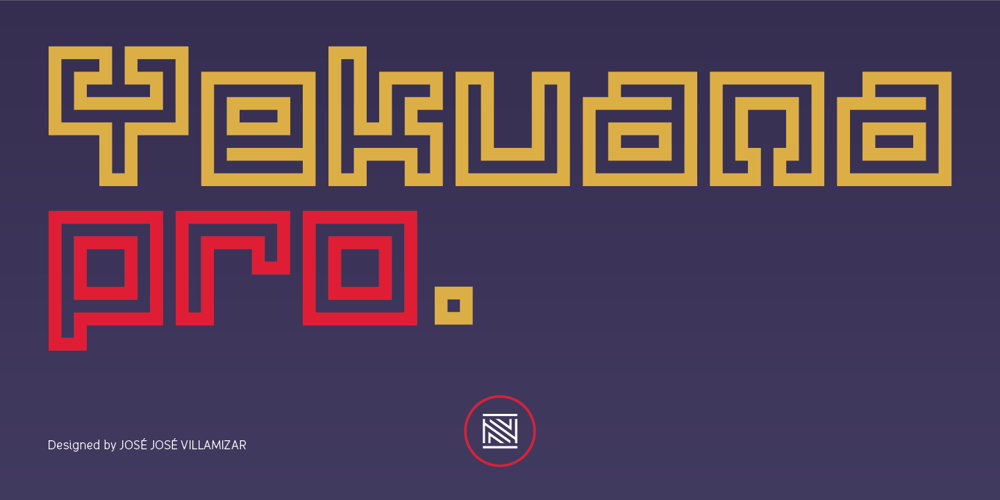
Yekuana Pro Font Family was designed by José José Villamizar and published by Neo Type Foundry. Yekuana Pro contains 4 styles and family package options. Yekuana Pro is a typeface whose design is based primarily on the study of certain geometric ethnic ancestral Venezuelan signs, visually rich and originally used in the enrichment of various utilitarian objects with high symbolic and cultural content. It’s a family that is composed of 330 glyphs y of two weights, including Inline and Outline versions, Stylistic Alternates, Fractions, Ordinals and Ligatures. The combination of their styles through the use of layers by contrasting colors application of allows to obtain new interesting results. Its use is recommended for titles or short phrases and elements of oversized visual communication.